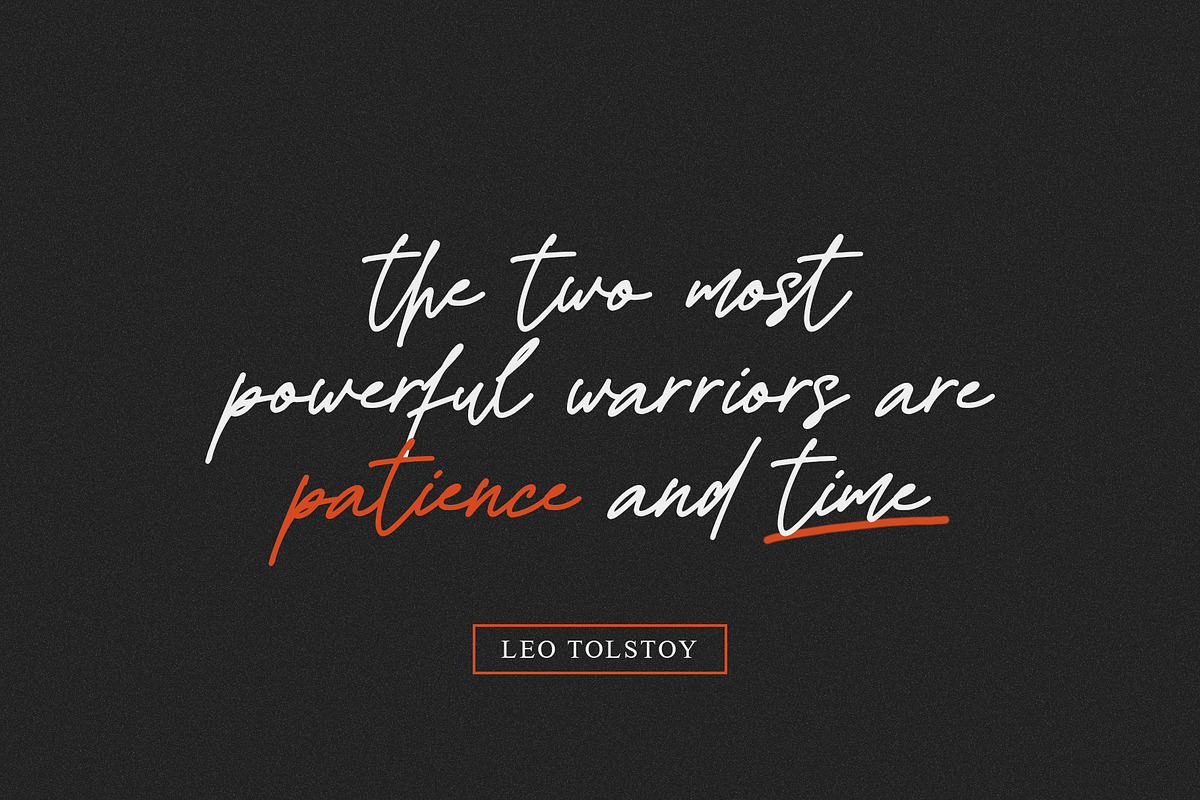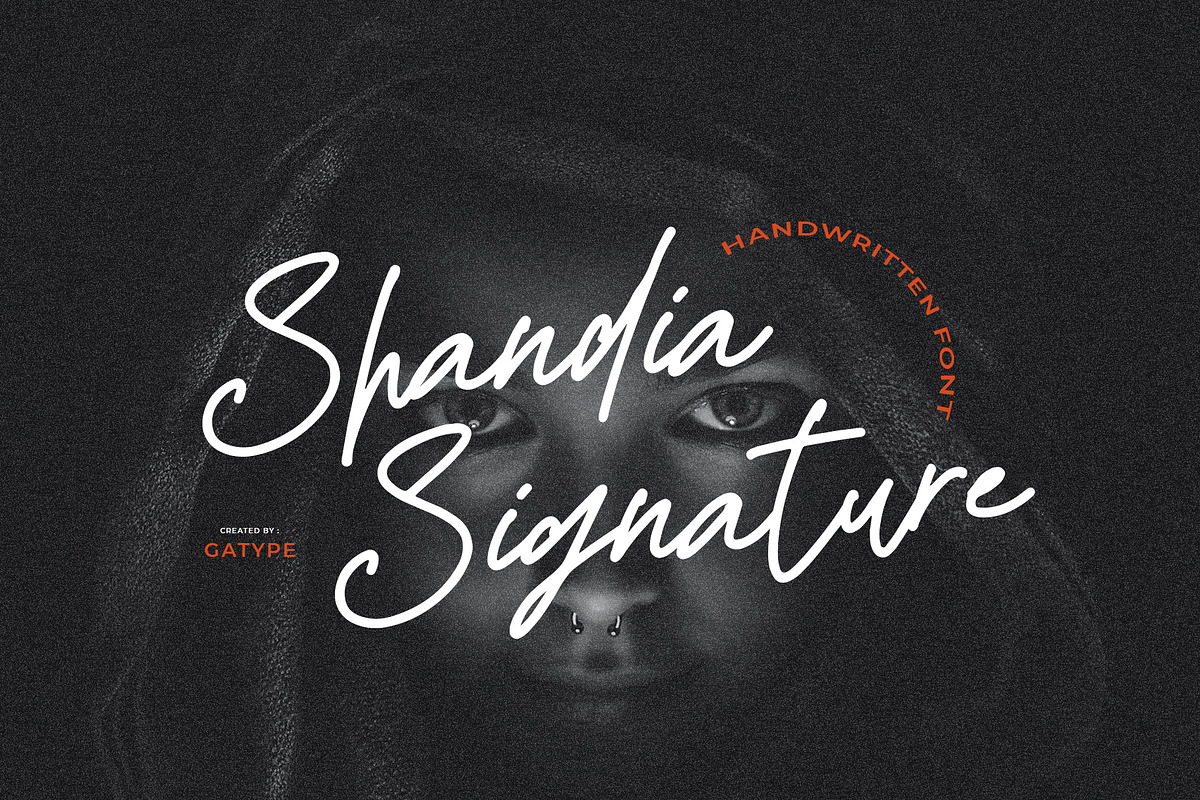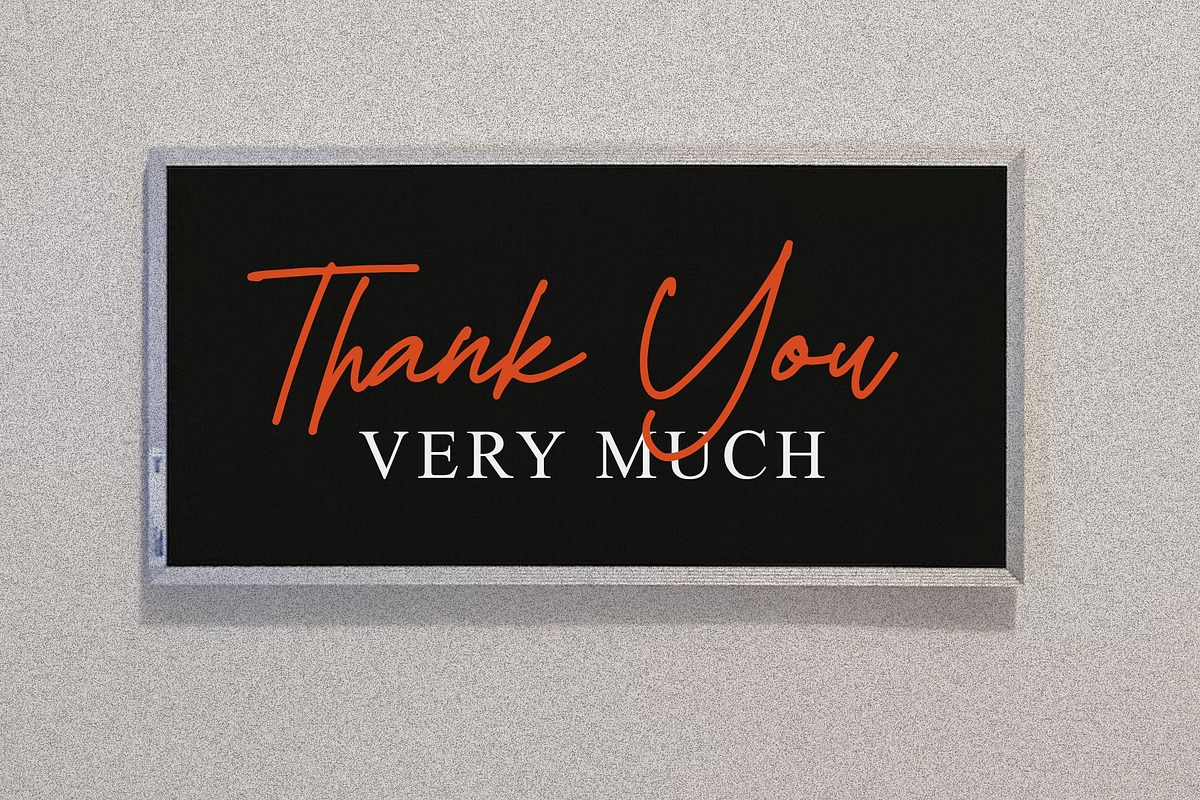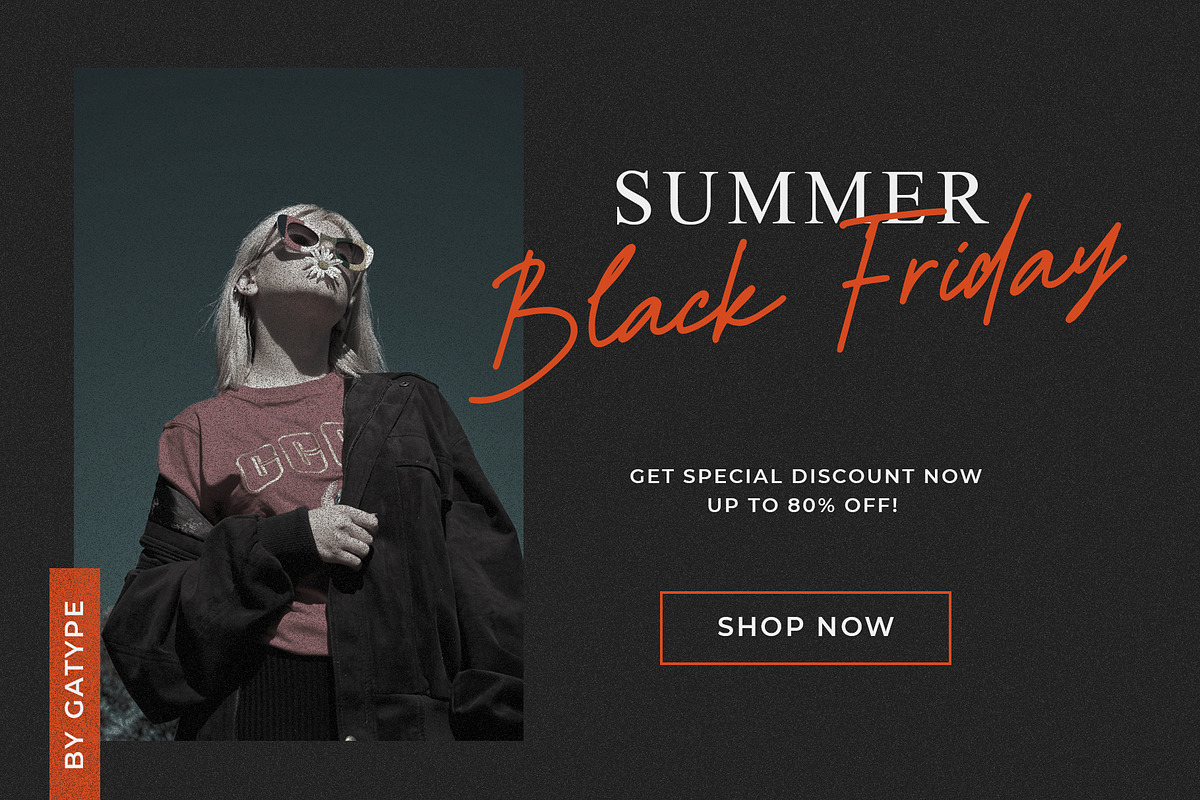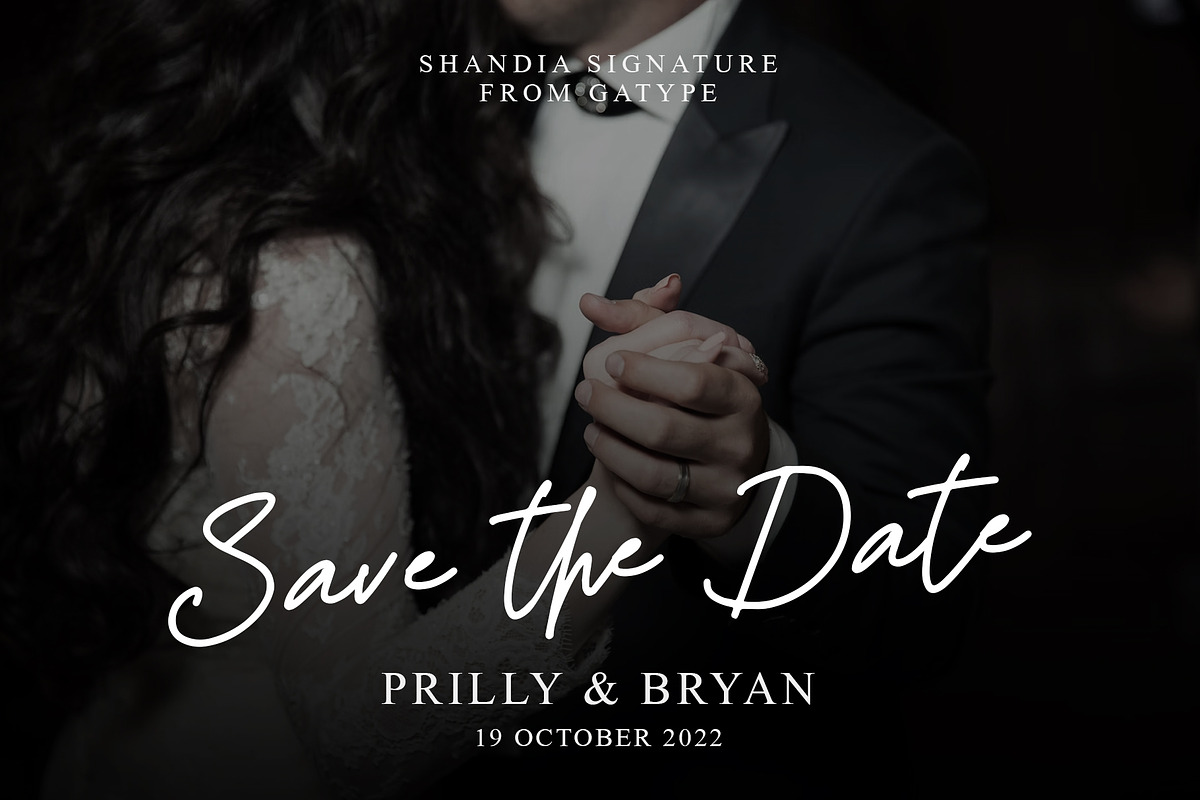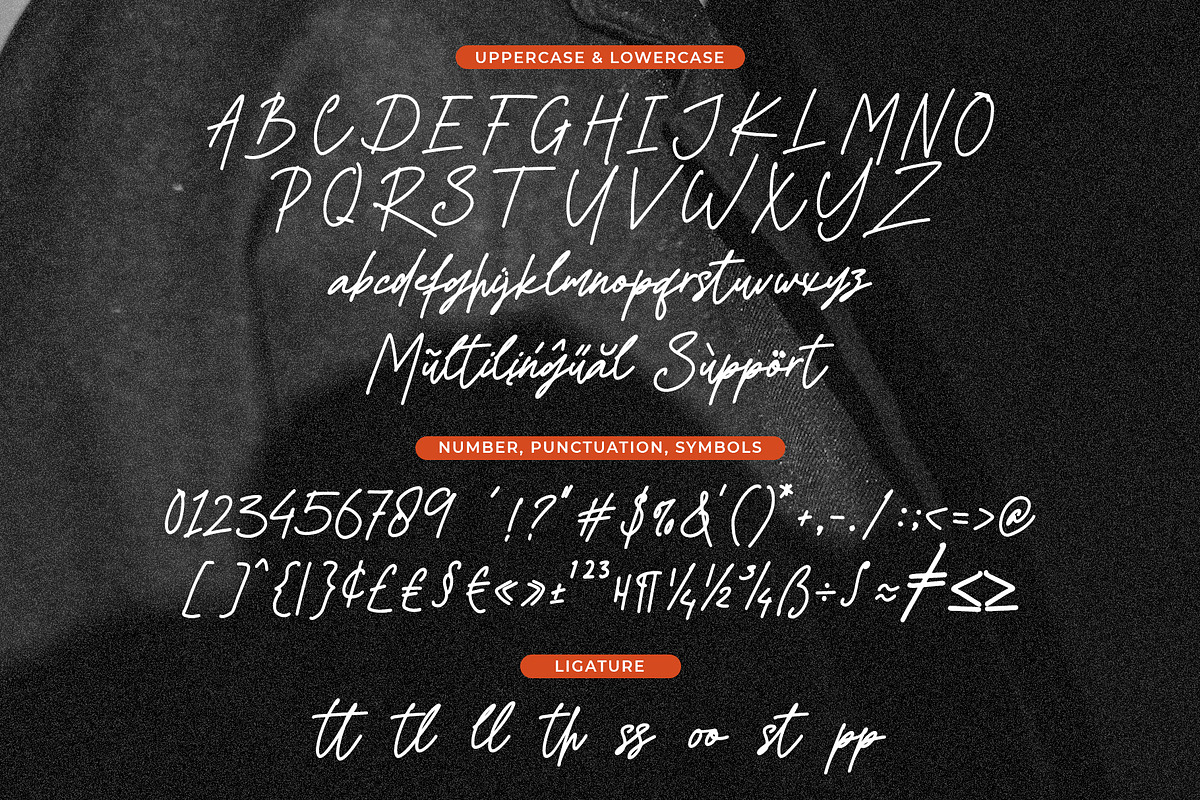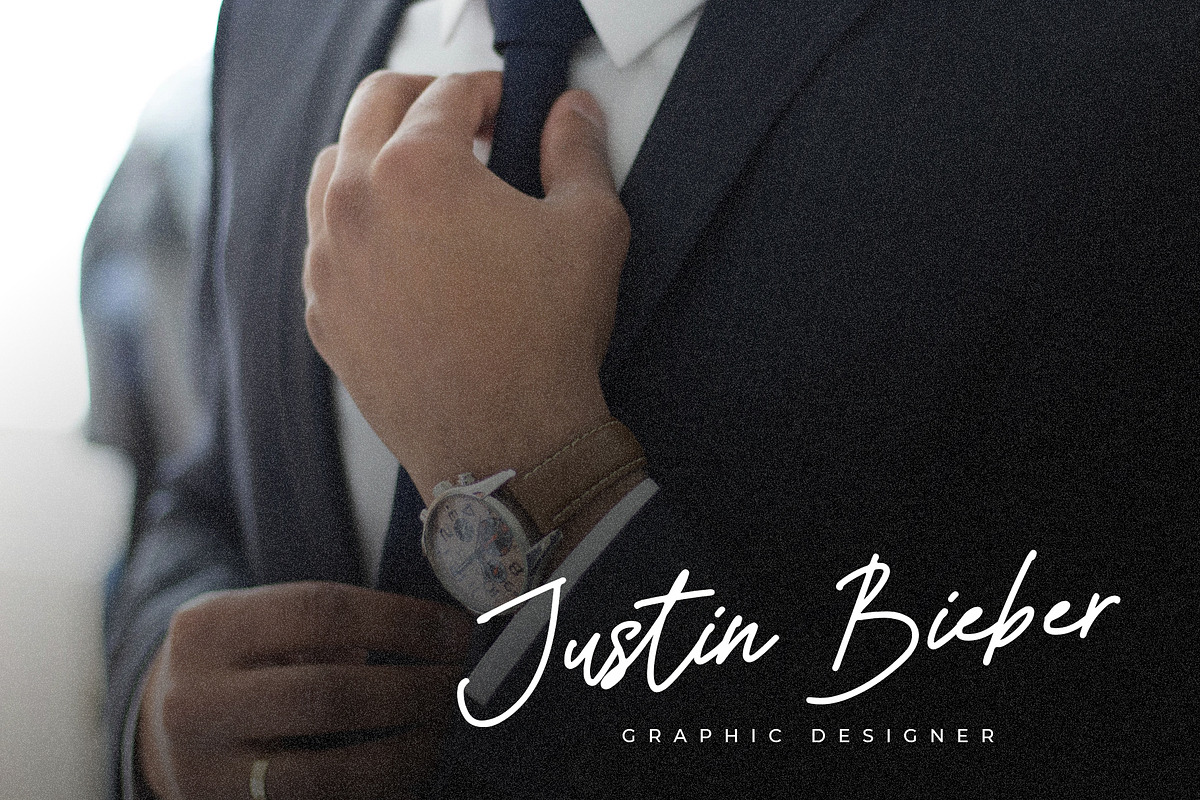
Shandia Signature
Shandia Signature is an elegant calligraphy font. This font is casual and pretty with a stroke. Can be used for various purposes. such as logos, product packaging, wedding invitations, branding, headlines, signage, labels, signatures, book covers, posters, quotes and others. Shandia Signature is encoded with PUA Unicode, which allows full access to all additional characters without having to design special software. Mac users can use Font Book , and Windows users can use the Character Map to view and copy any additional characters to paste into your favorite text.